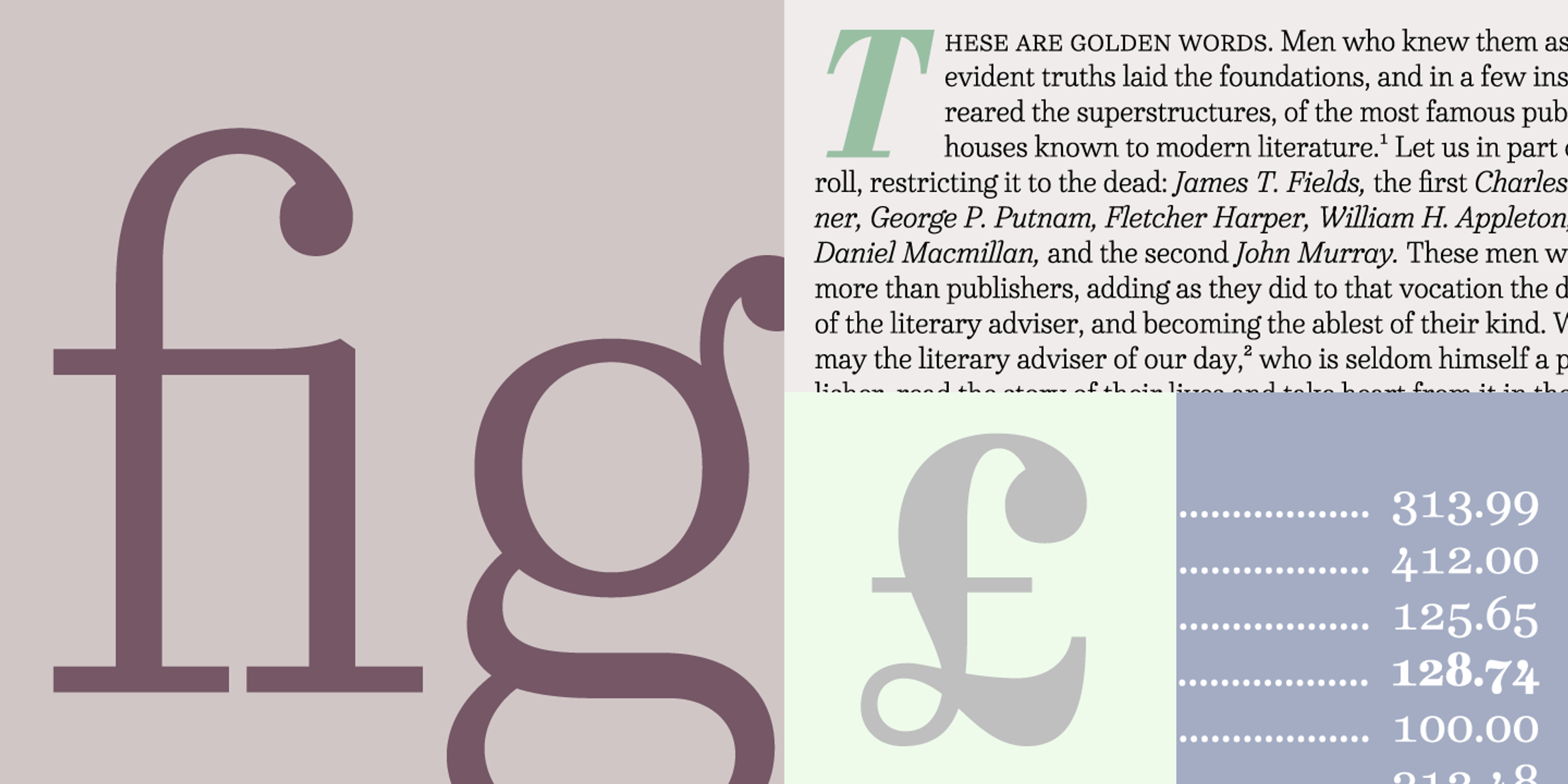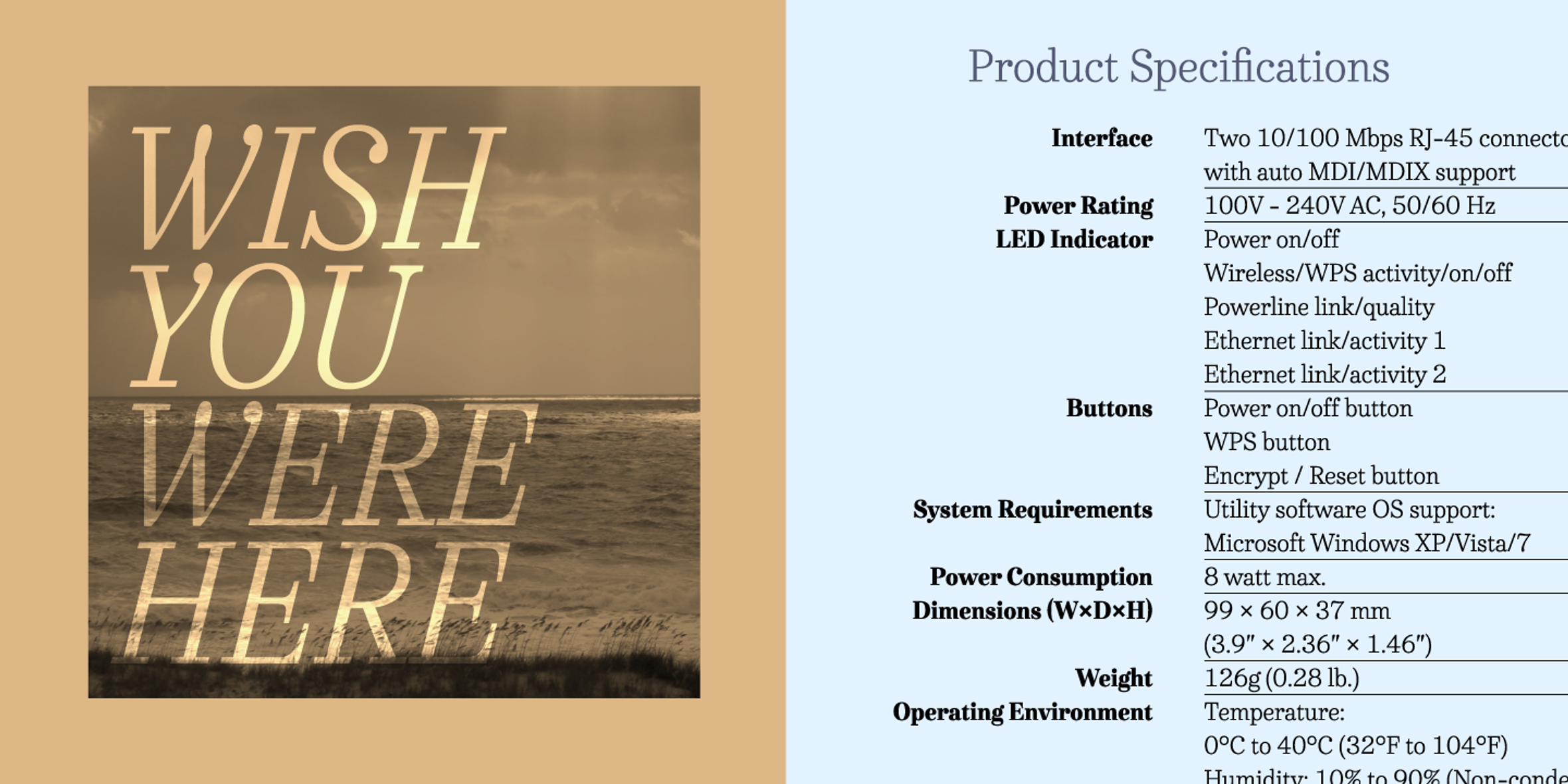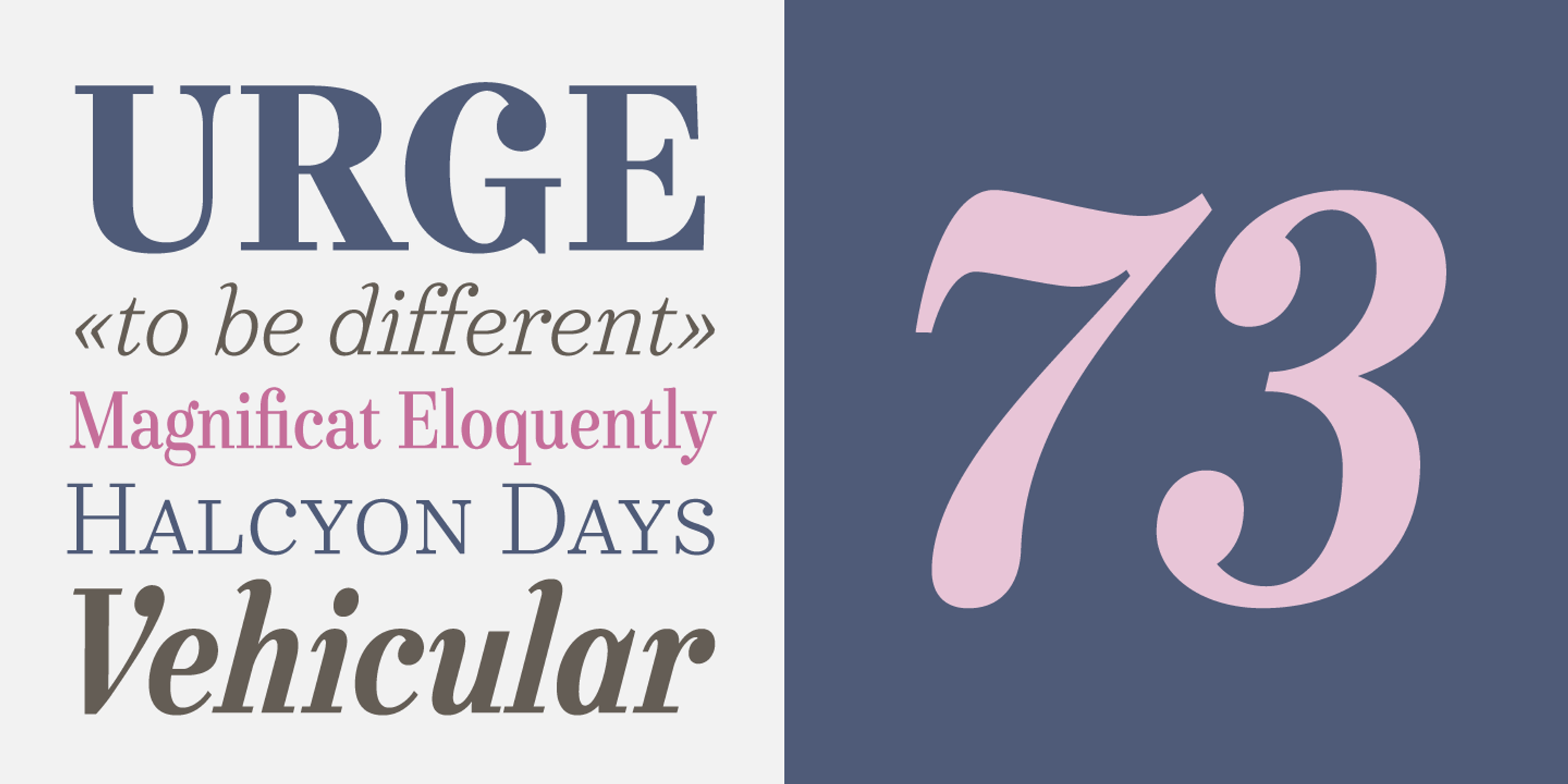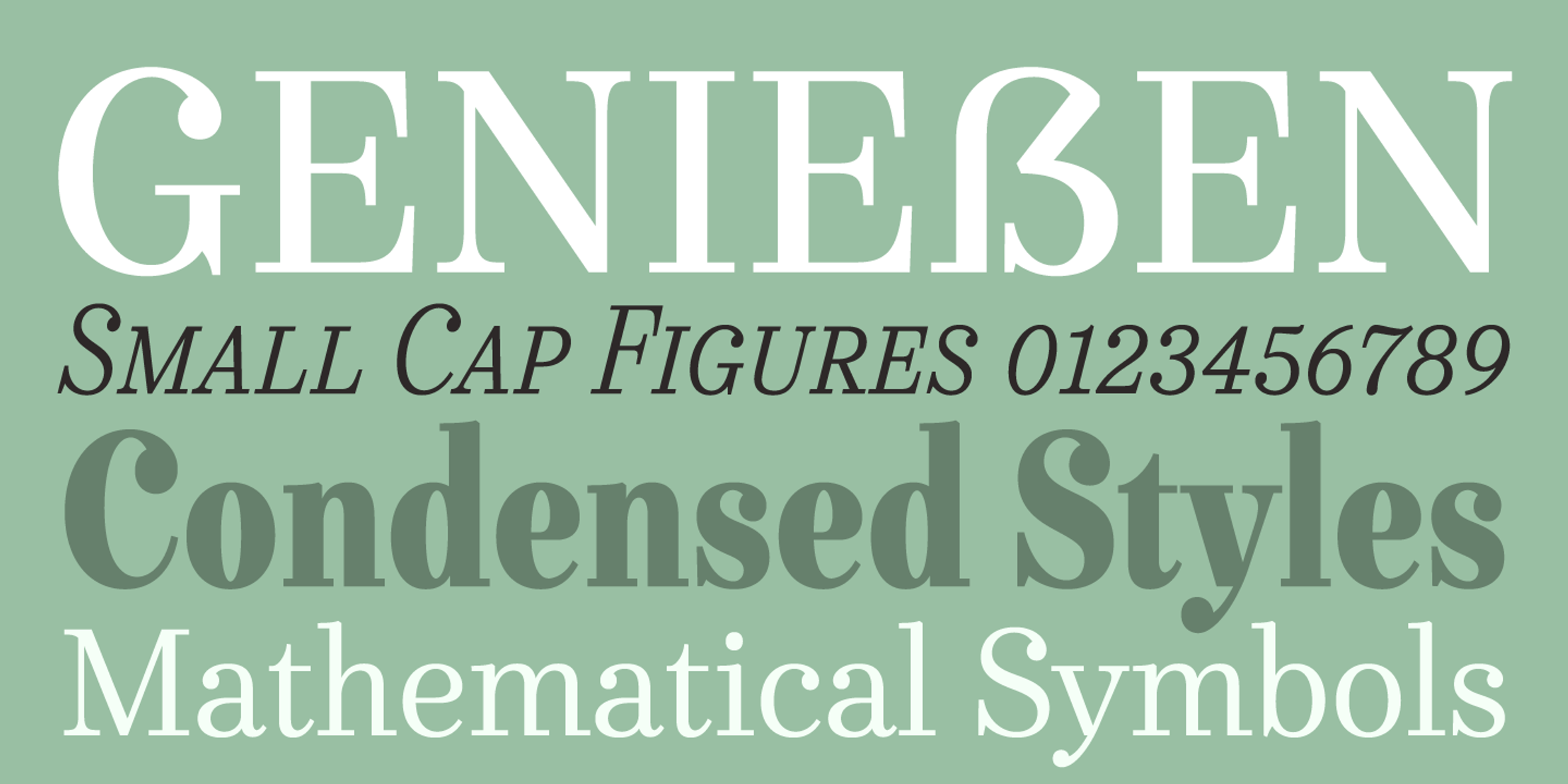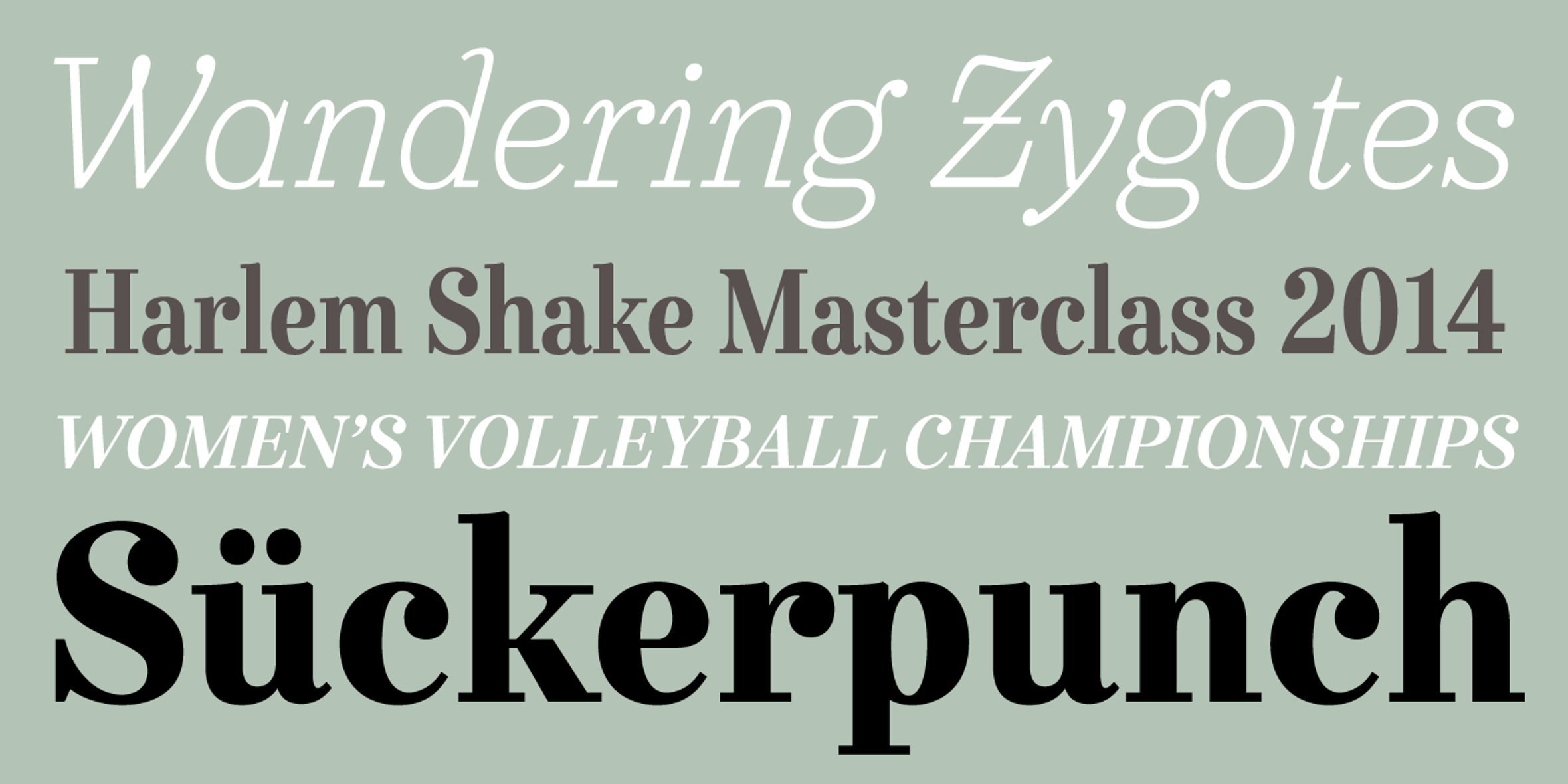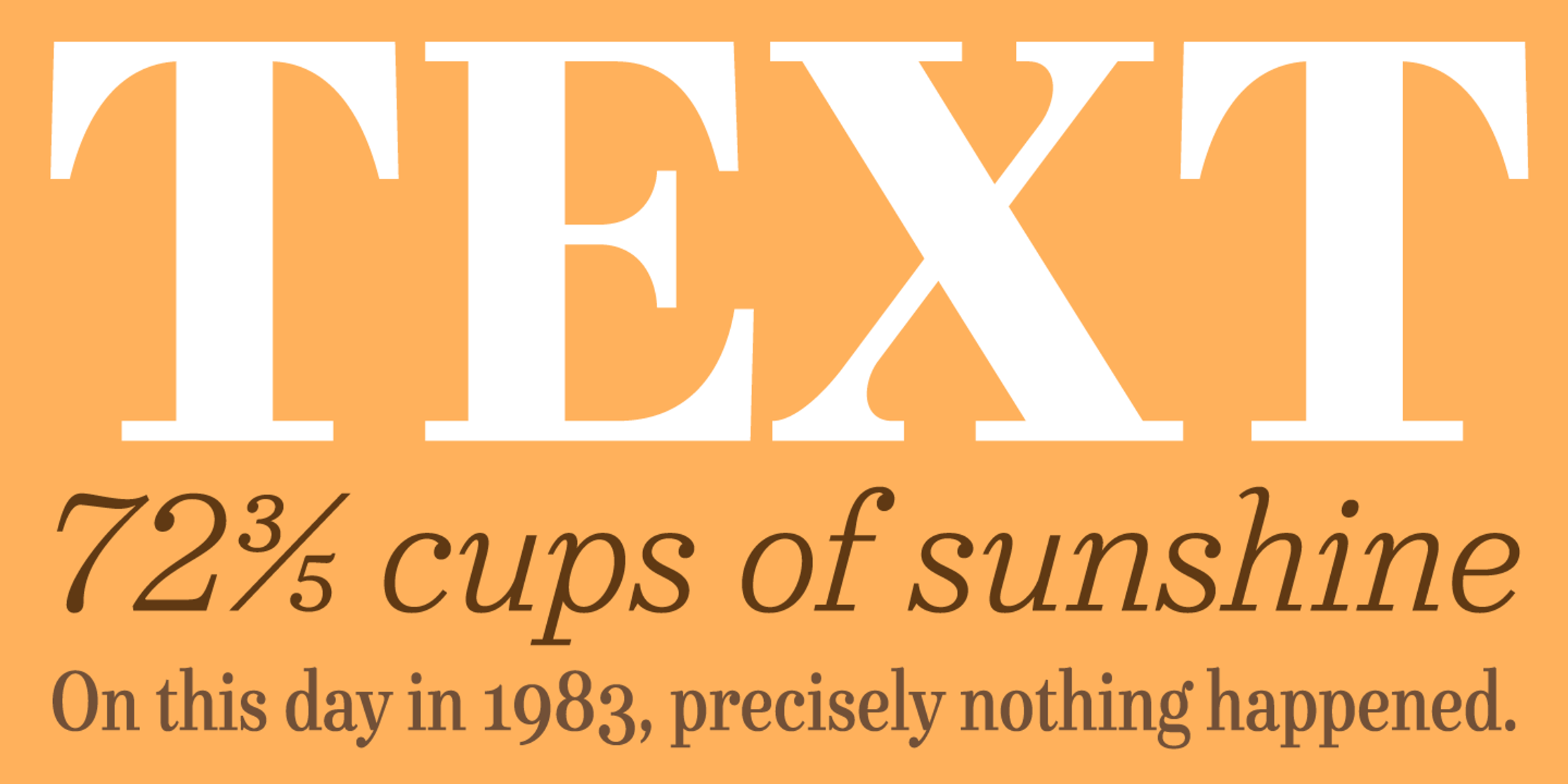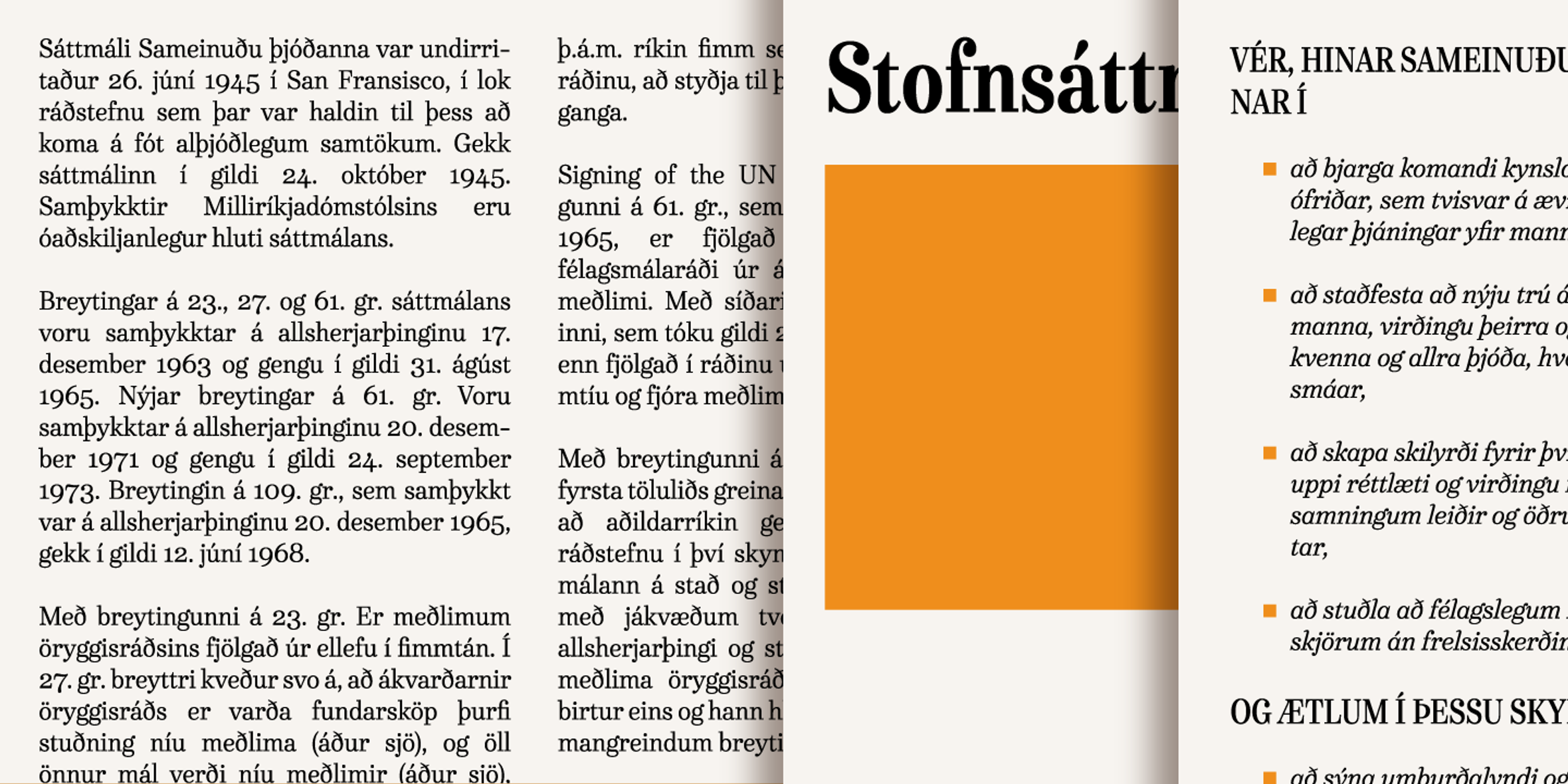
Urge Text Fonts
Urge Text
Urge Text is a highly usable serif family with a split personality somewhere in between an Egyptian and a Modern. It has an entire array of features for the most discerning typographer. Ranging from the almost monoline, Egyptian style light weights to higher contrast ‘Modern’ bolds, there is endless potential for use in typographically demanding scenarios. The family comprises six weights, two widths, and matching italics. Urge Text is ready for storytelling that’s both clear and characterful.
- Common Ligatures
- Discretionary Ligatures
- Fractions
- Old Style Numerals
- Small Capitals
- Small Capitals for Capitals
- Subscript
- Superscript
- Tabular Numerals